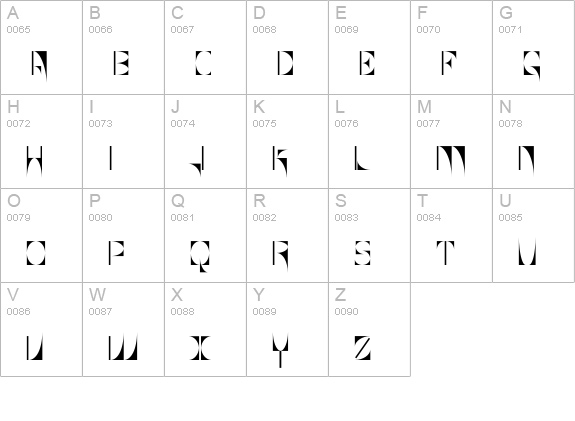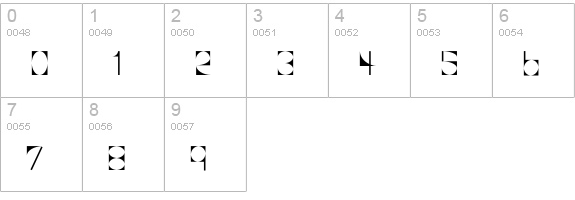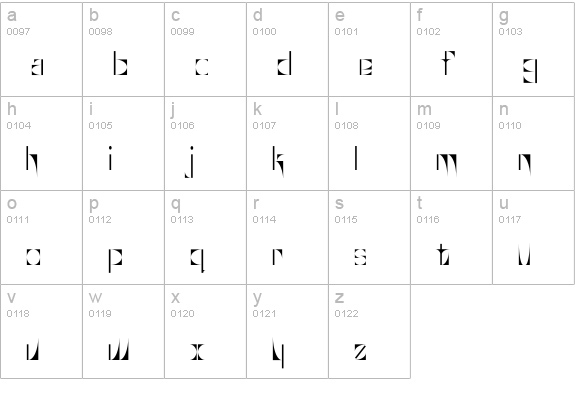
Glaukous Font Details
Glaukous font is a stunning typeface that exudes elegance and sophistication. With its delicate curves and clean lines, Glaukous is perfect for adding a touch of refinement to any design project. This versatile font is ideal for a wide range of applications, from branding and packaging to invitations and social media graphics. What sets Glaukous font apart is its seamless blend of modernity and classic beauty. It strikes the perfect balance between contemporary design trends and timeless elegance. Whether you're creating a sleek corporate identity or a stylish wedding invitation, Glaukous font will elevate your project to new heights. The best part? Glaukous font is completely free to download at FontsMarket.com. Yes, you read that right – you can get your hands on this exquisite font without spending a dime. So why wait? Enhance your designs with the beauty and sophistication of Glaukous font today.